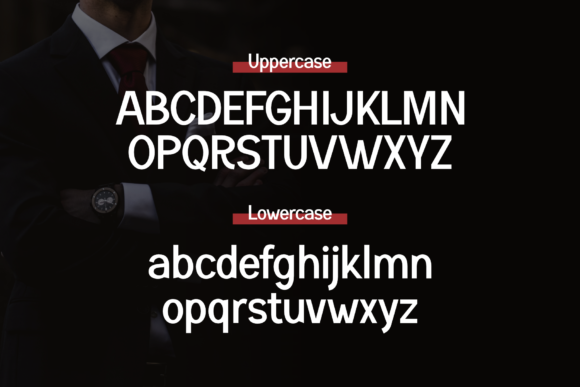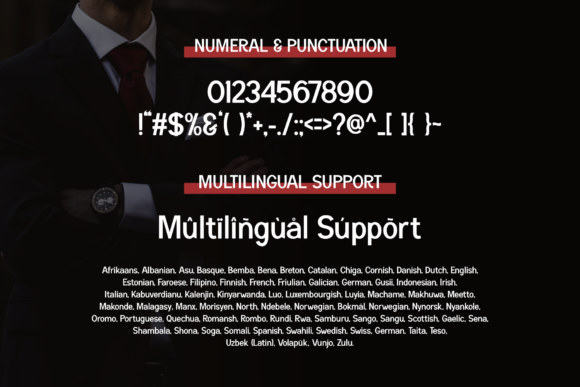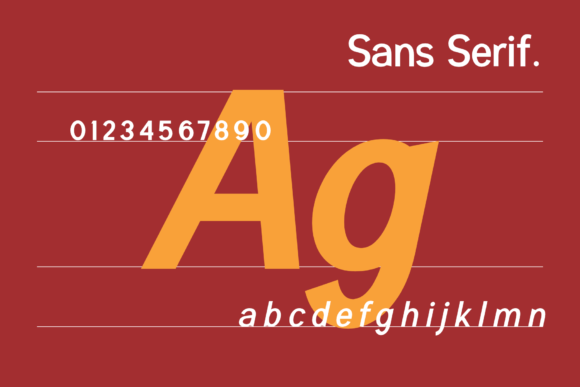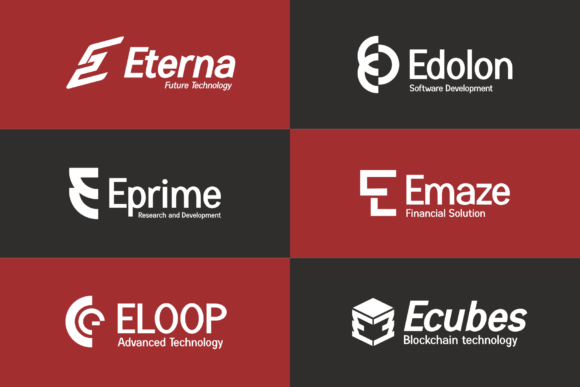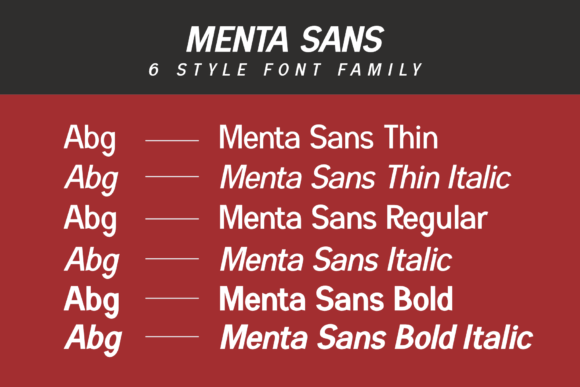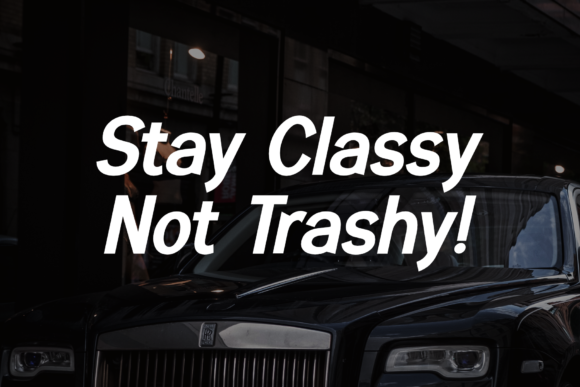
Introduction to Menta Font
Menta is a cool and clean sans serif font.
It will elevate a wide range of crafting ideas, from cards, to branding, labels and much more Add it confidently to your favorite creations and let yourself be amazed by the outcome generated.
Key Features of Menta Font